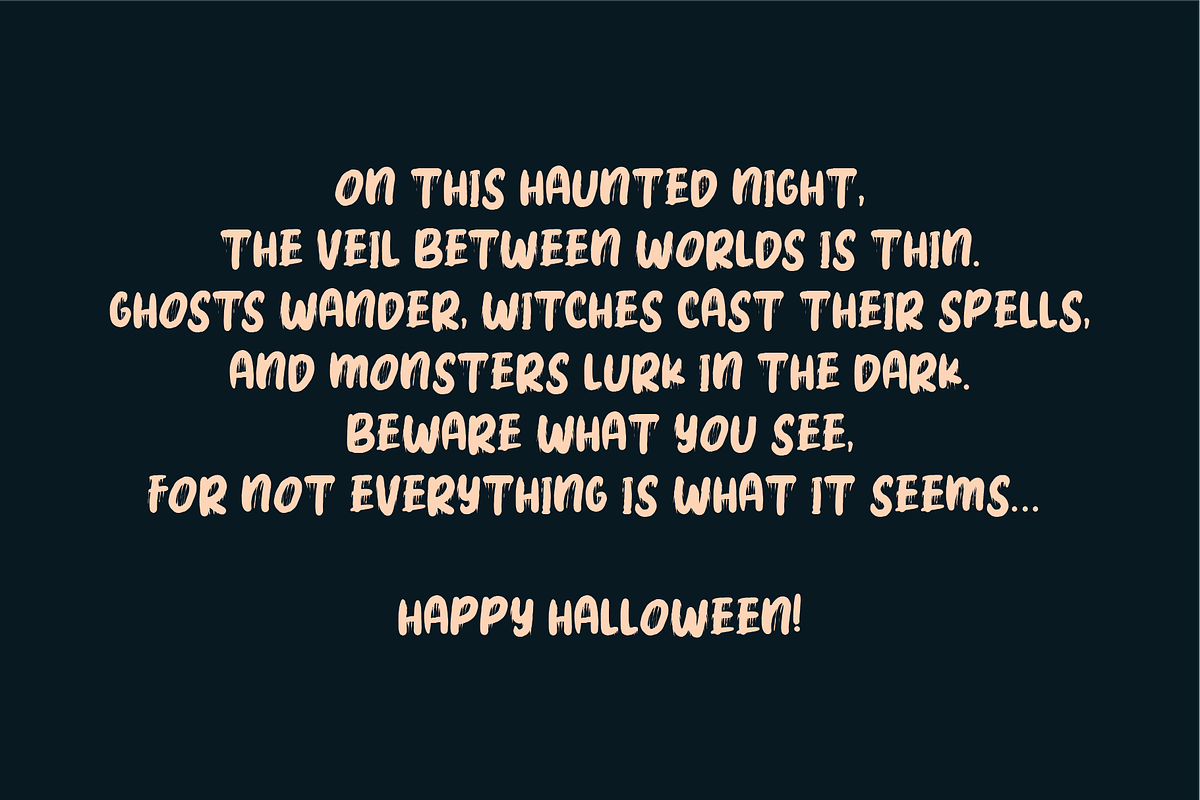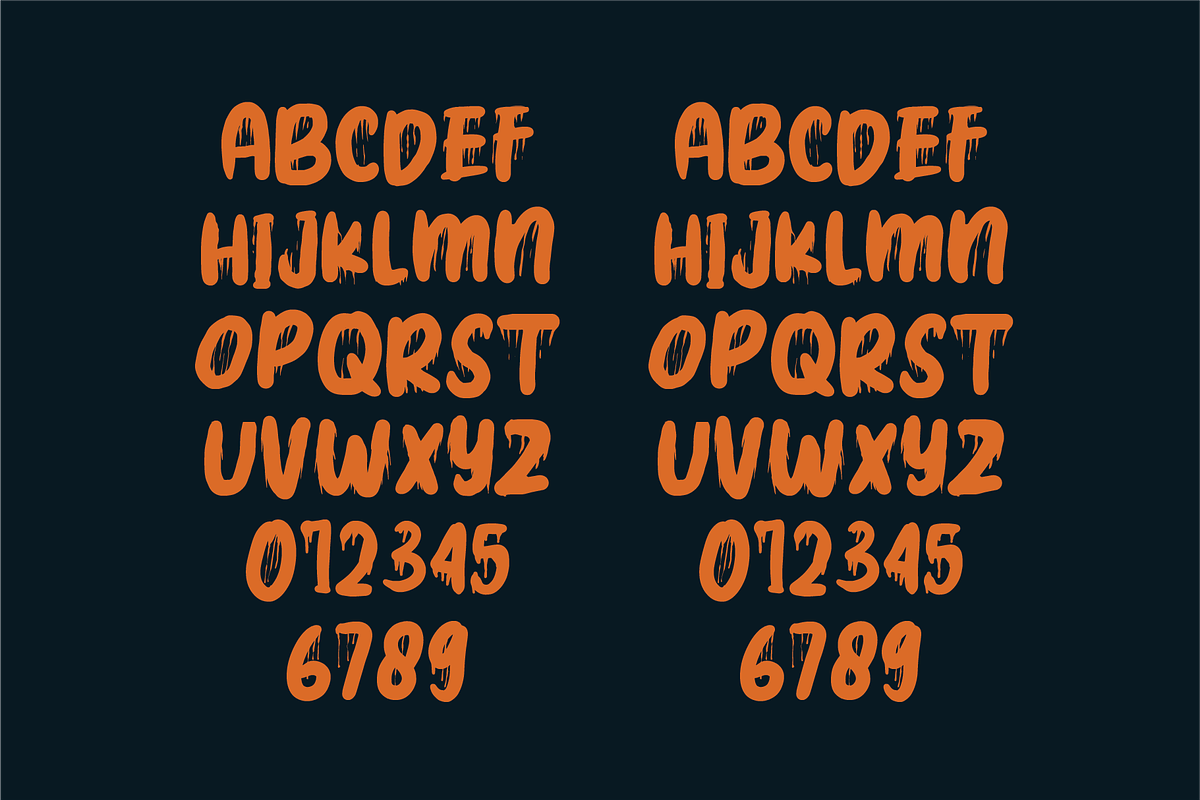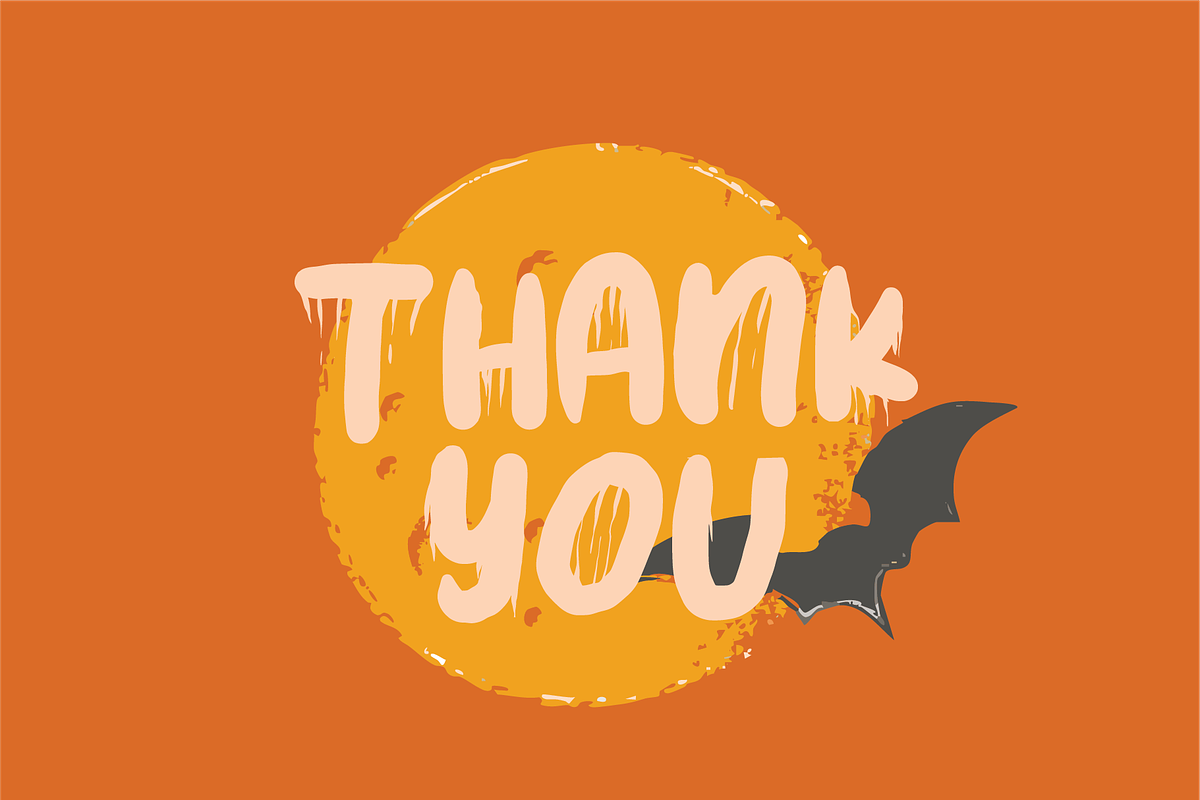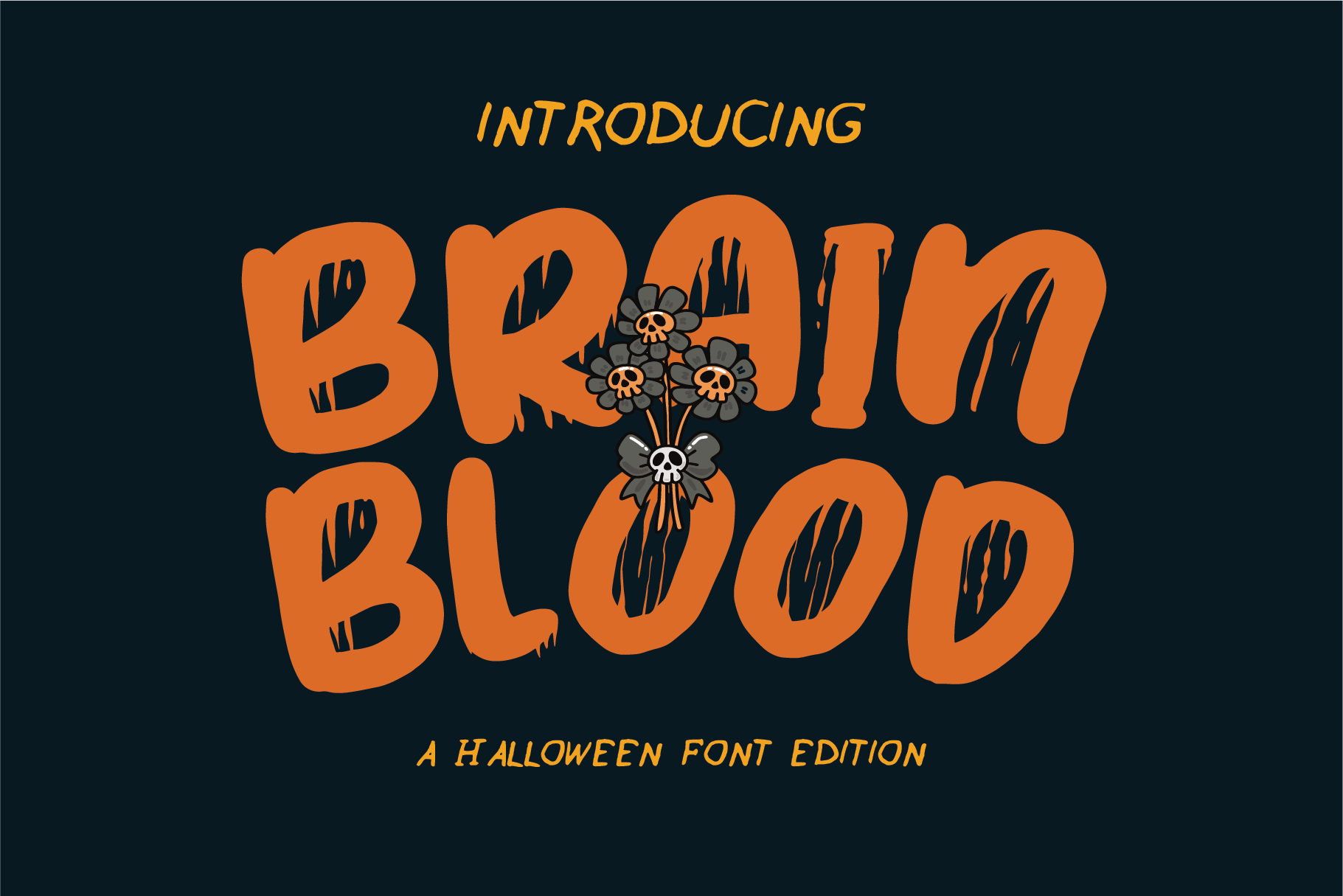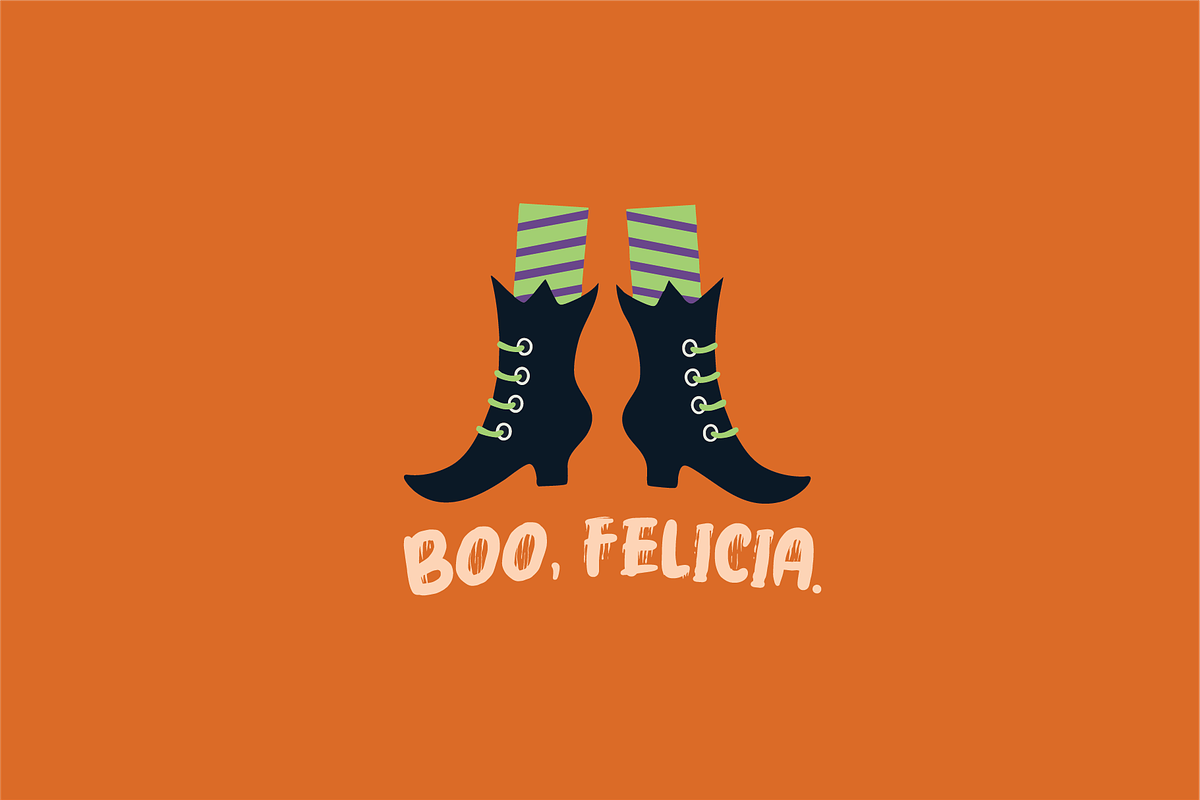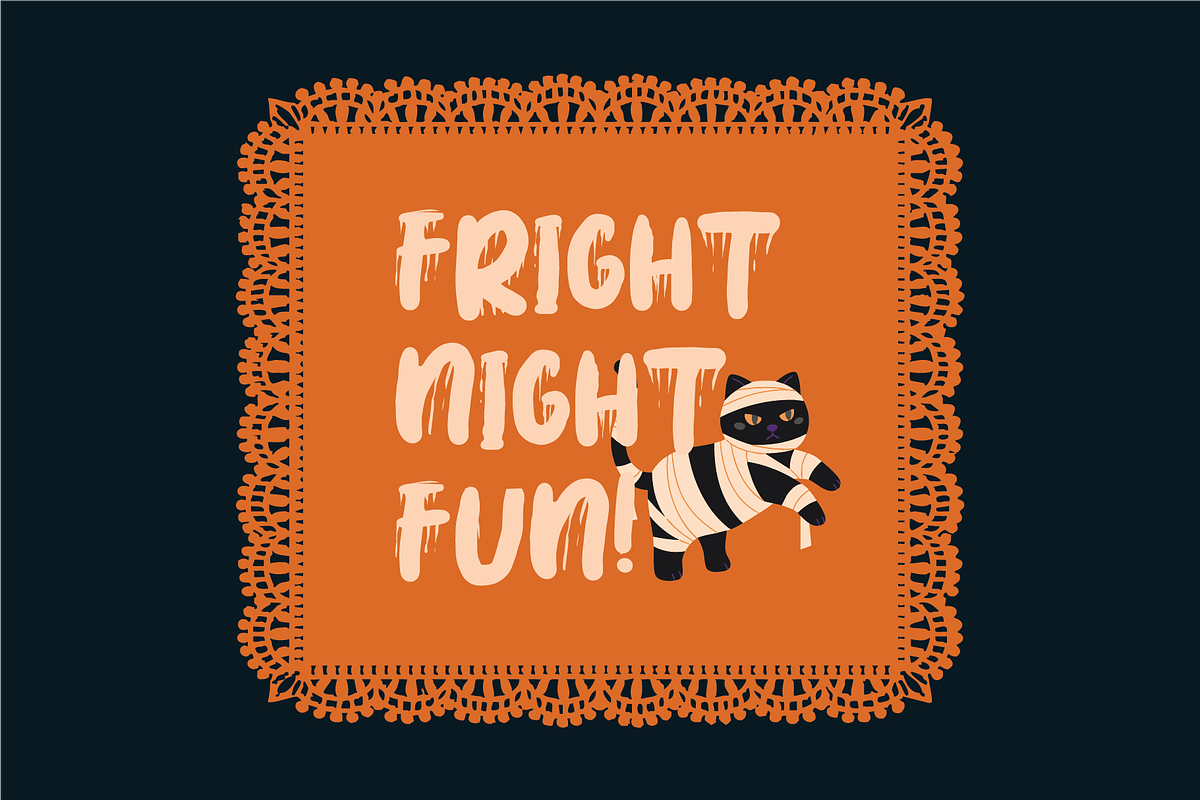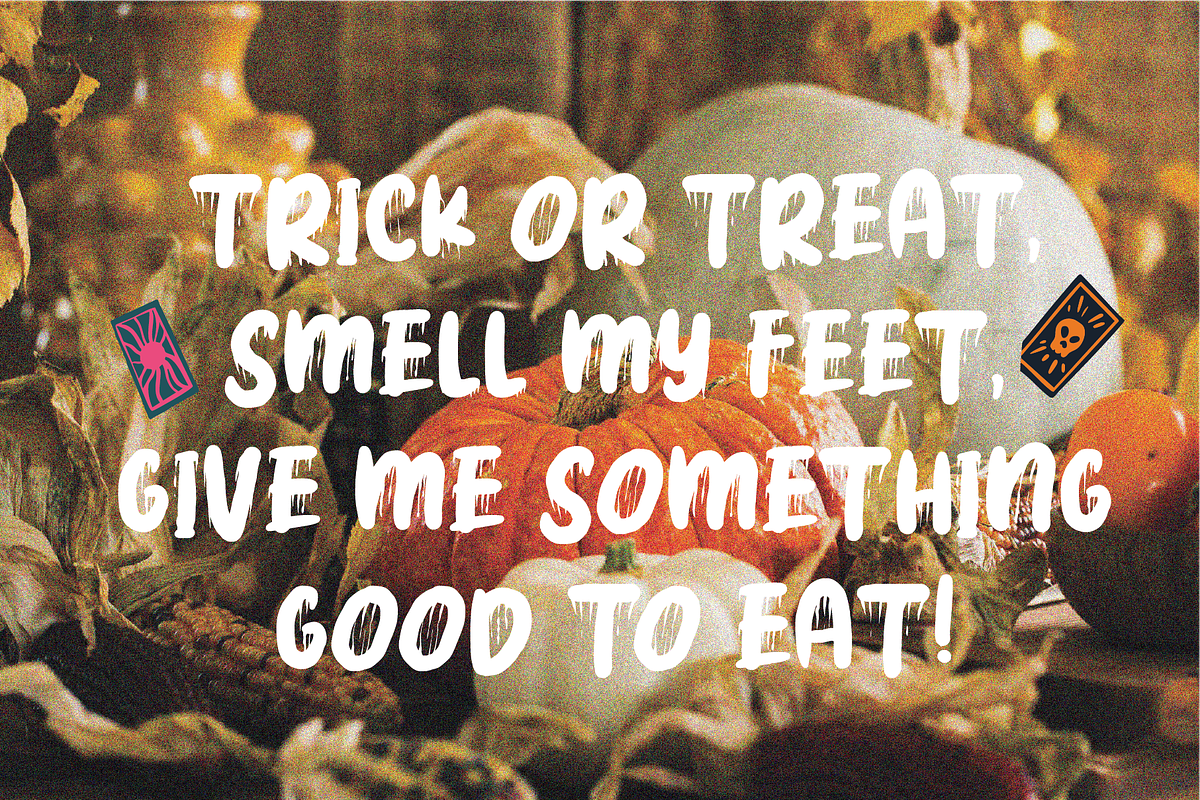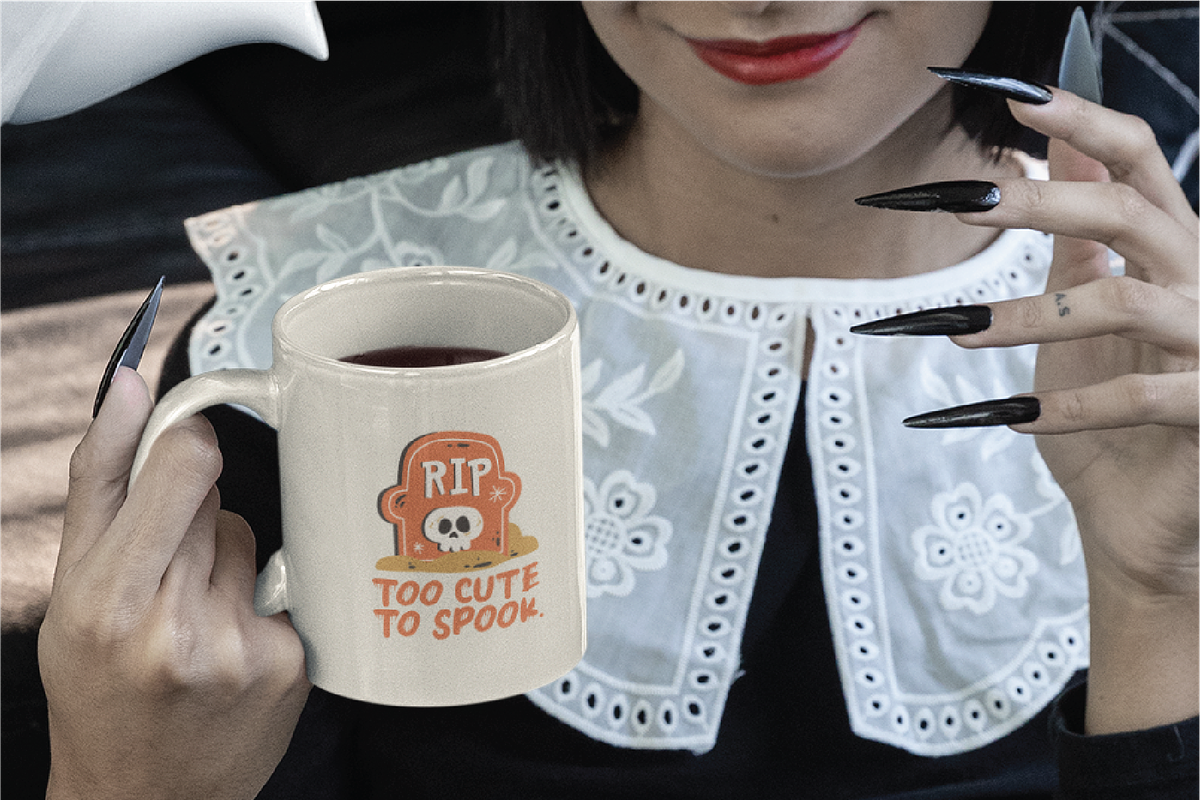
BrainBlood | Halloween Font
BrainBlood the font in the image has a bold, distressed, and slightly grungy appearance. The letterforms are thick and angular, with a rough texture, giving the text an edgy and rebellious look.
- Numbers, marks and symbols